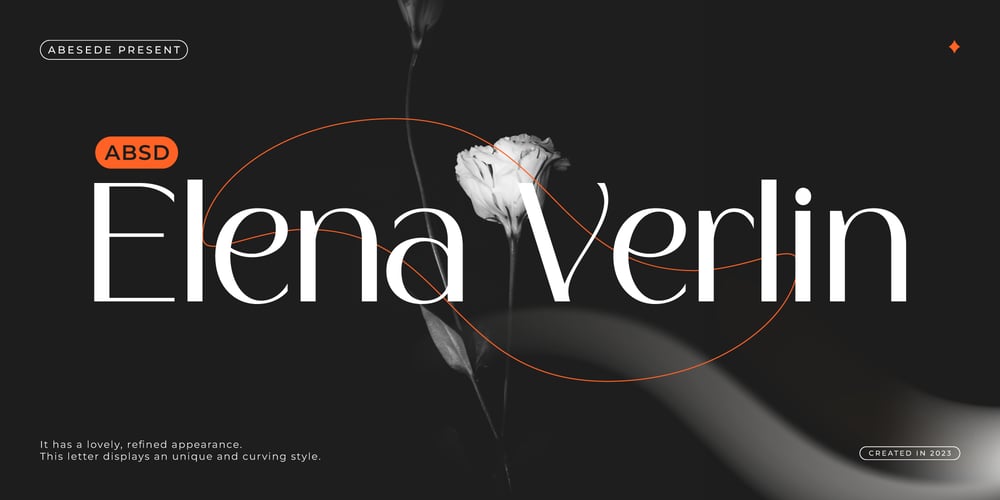
ABSD Elena Verlin Font Family was designed by Andreas Rossi and published by Abesede Studio. ABSD Elena Verlin contains 1 styles and family package options. It has a lovely, refined appearance. This letter displays an unique and curving style. The gorgeous and elegant Elena Verlin Font is perfect for any project you are working on. This font is ideal for use on invitations for weddings, birthdays, anniversaries, and other special events. Because it can be applied on logos and products, it’s also ideal for branding.